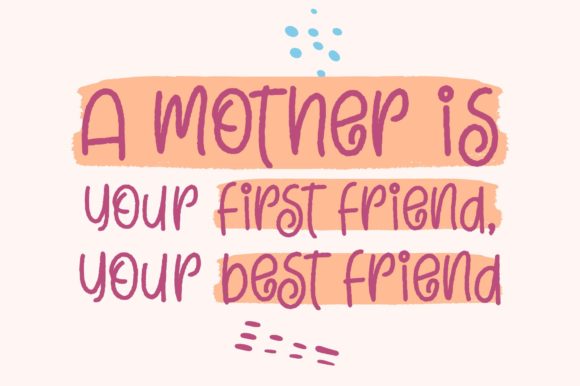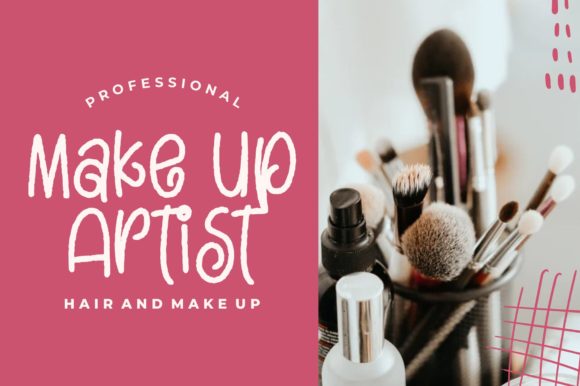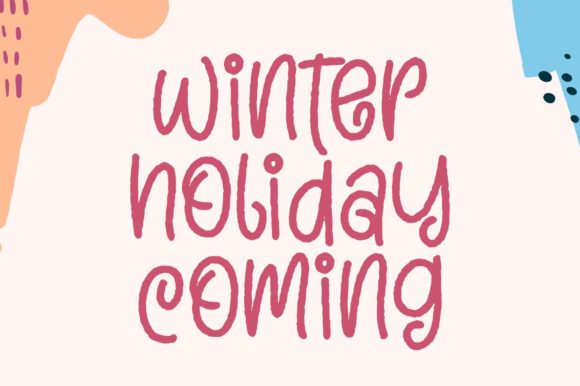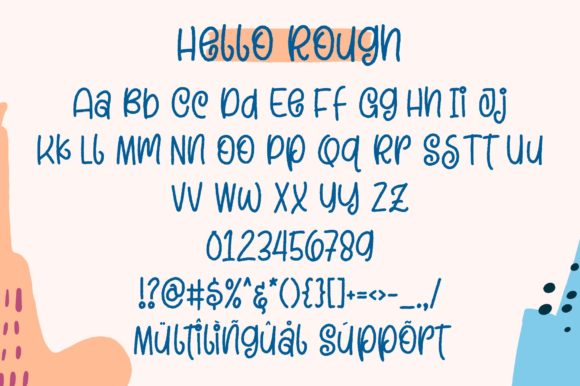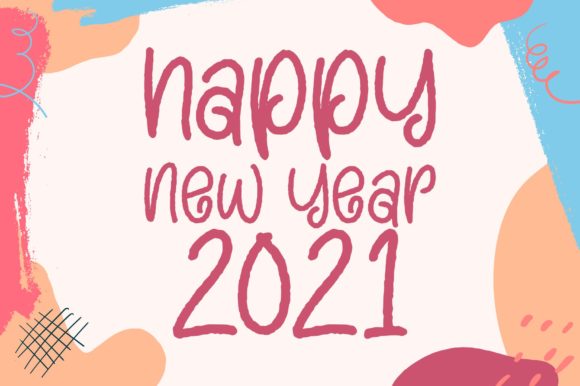
Introduction to Hello Rough Font
Remember that moment when you stumbled upon the perfect design resource? The one that made your creative project come alive, and you couldn’t wait to show it off to the world? For designers, that feeling is priceless. It’s the moment when everything clicks, and your vision starts to take shape. That’s exactly what Hello Rough Font is designed to do – add a dash of joy and personality to your designs.
With its friendly, yet assertive display font style, Hello Rough Font is the perfect addition to any creative project. Whether you’re working on a digital design, a print material, or even a social media graphic, this font is sure to make it stand out. And the best part? It’s available for free download, complete with a transparent background, making it easy to integrate into your high-quality designs.
Key Features of Hello Rough Font
- High-quality design resource suitable for creative projects requiring a unique, handwritten feel.
- Features a transparent background, making it easy to use in a variety of design scenarios.
- Comes in multiple styles, including uppercase and lowercase letters, numbers, and punctuation.
- Unique characteristics include a rough, textured look and feel, making it perfect for adding a touch of creativity to any design project.
Honest Review: Hello Rough Font
As a designer, I’m always on the lookout for high-quality design resources to enhance my creative projects. The Hello Rough Font caught my attention, and I decided to give it a try.
What works well: ✨ The font’s unique, hand-drawn style gives it a distinctive charm that’s perfect for adding a personal touch to your designs. The free download is also a major plus, making it an excellent choice for designers on a budget. I particularly like the transparent background option, which allows for seamless integration into various design applications.
Here are some key features I appreciate:
- Unique, hand-drawn style
However, I do have some reservations: ⚠️ The font’s rough, hand-drawn nature can make it difficult to read at smaller sizes. Additionally, some letters may not be as consistent in their design as I’d like.
Overall, I’d say the Hello Rough Font is a great choice for designers looking to add a creative, handwritten touch to their projects. While it may not be perfect, its unique style and free download make it a valuable resource for any design enthusiast.
Hello Rough Font is a high-quality design resource ideal for creative projects requiring a unique, casual touch. This versatile font can be easily integrated into various design tools, making it a valuable asset for designers and non-designers alike.
To get the most out of Hello Rough Font, experiment with different font sizes, colors, and backgrounds. You can also pair it with other fonts for a unique look.
Hello Rough Font is ideal for:
- Casual social media graphics
- Blog posts and articles
- Product labels and packaging
Transparent Background
Hello Rough Font can be used with a transparent background, making it perfect for overlaying text on images or videos.
Alternatives to Hello Rough Font
The Great Vibes Font is a high-quality, free download design resource ideal for creative projects that require a touch of elegance and sophistication. It features a transparent background, making it perfect for overlaying on images or using as a standalone element. Great Vibes is a great alternative to Hello Rough Font when you need a more refined and subtle design.
Pacifico Font is a beautiful, cursive design resource that’s perfect for creative projects that require a sense of luxury and style. It features a transparent background and a high-quality design that’s sure to elevate any design project. Pacifico is a great alternative to Hello Rough Font when you need a more elegant and sophisticated design.
Can I use the Hello Rough Font with a transparent background?
Yes, the Hello Rough Font includes a transparent background version, allowing you to use it with a transparent or semi-transparent background. This makes it perfect for creating stunning visual effects and designs with a sense of depth and dimensionality.